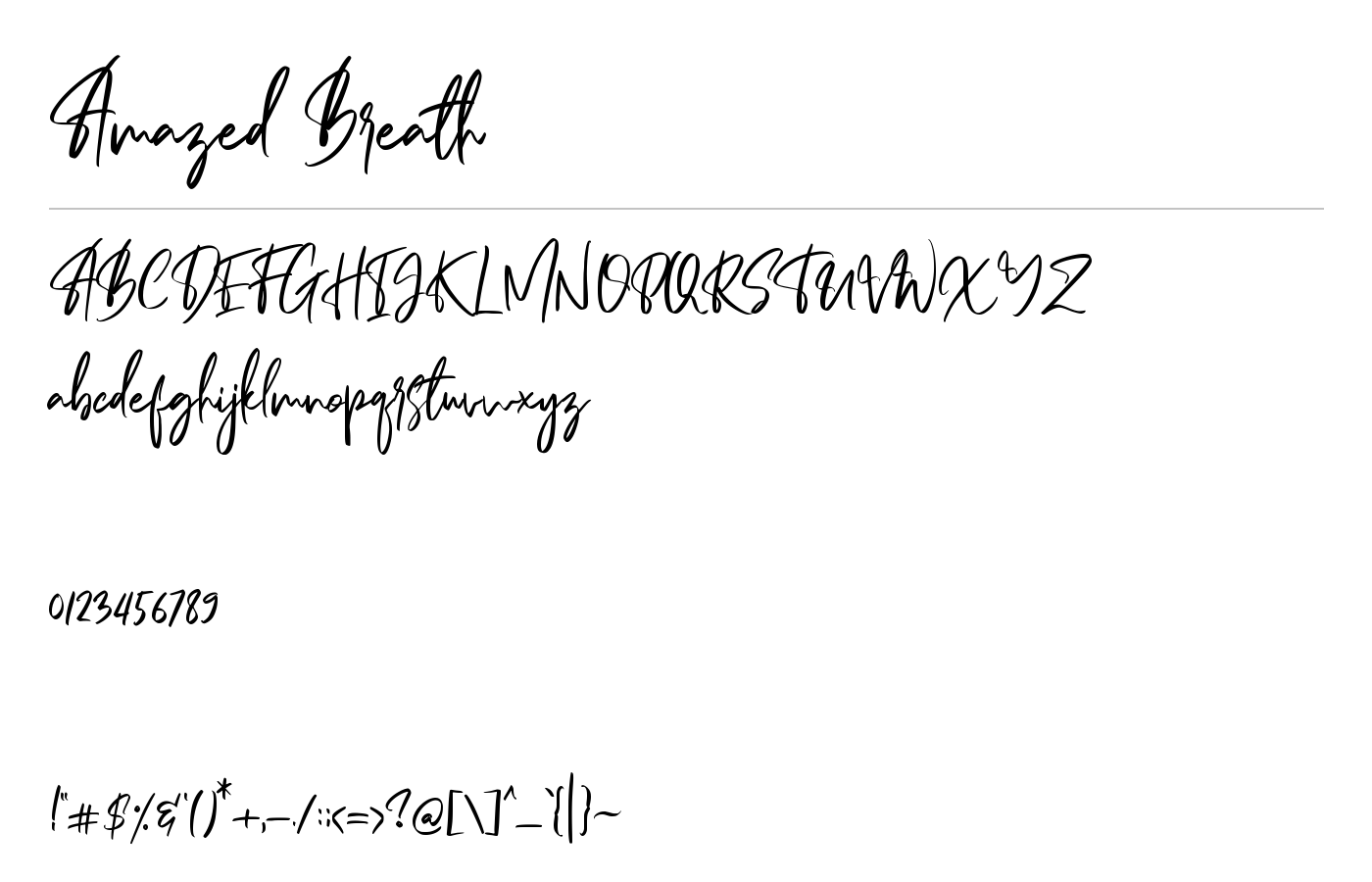
Amazed Breath Font is a lively, handwritten script with a casual and organic feel, characterized by its uneven strokes and tall, narrow letterforms. Its thin, flowing lines and loose structure give it an airy, personal touch that works well for creative and informal designs. This font is ideal for branding, invitations, and social media where a warm, approachable, and artistic style is desired.
Amazed Breath Font
About Amazed Breath Font
| Font family | Amazed Breath Font |
| Designer | Almarkhatype 2019 - Abdul Malik Wisnu |